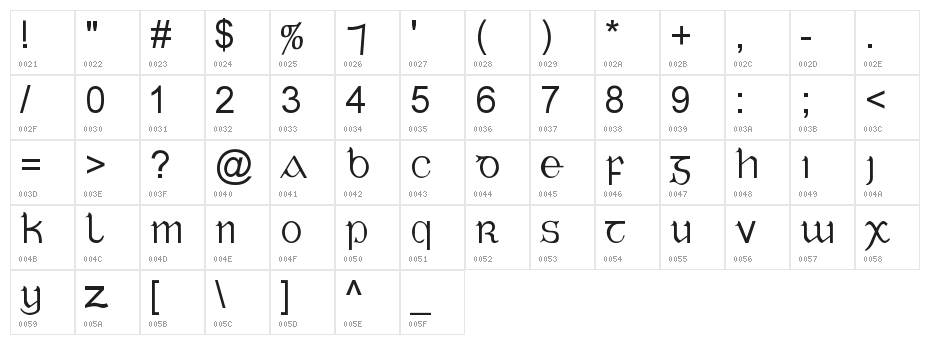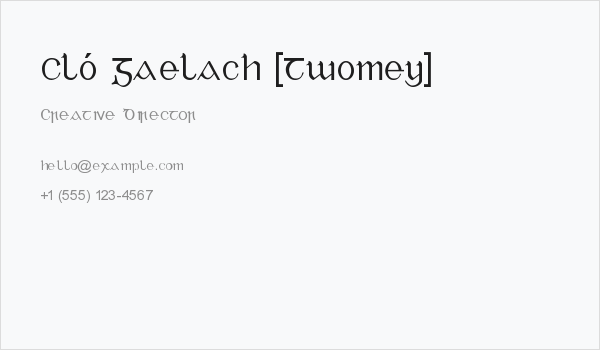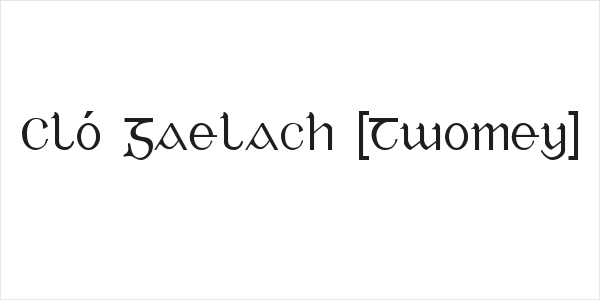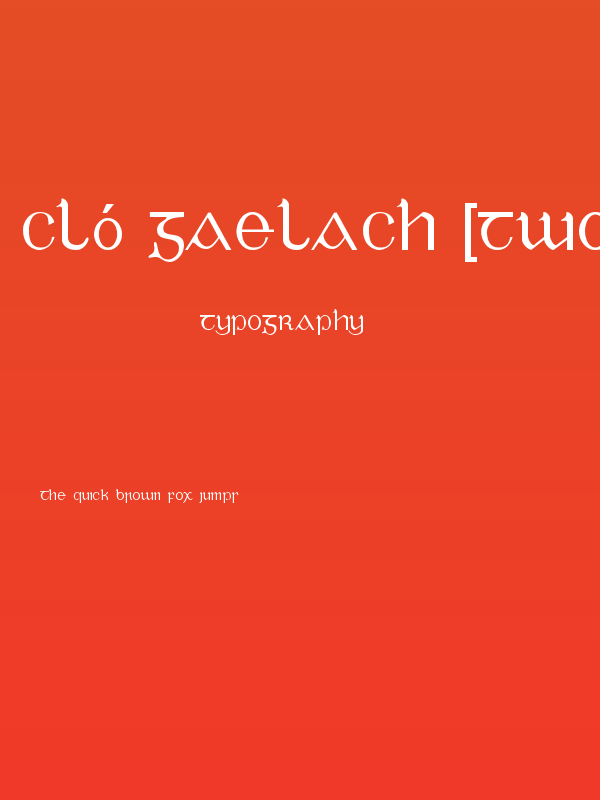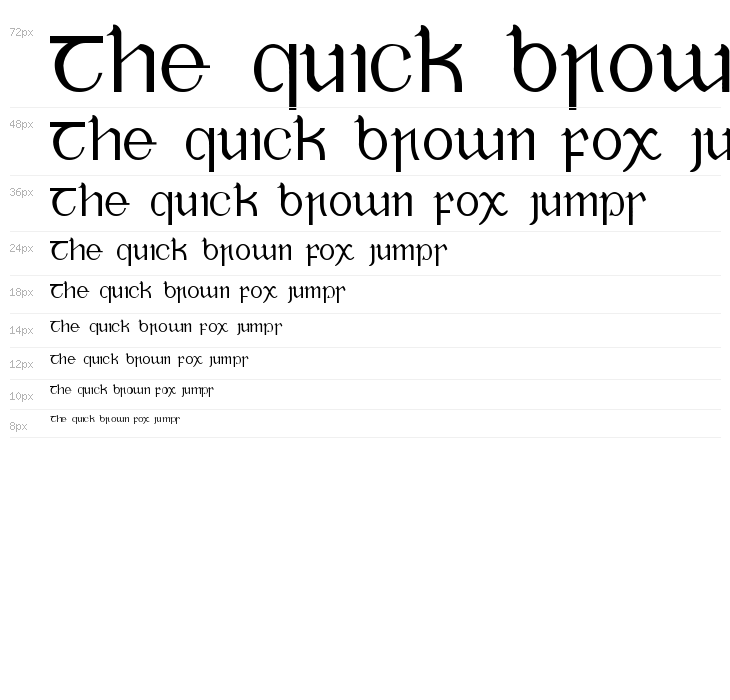
Cló Gaelach [Twomey] Font
Cló Gaelach [Twomey] Description
This font exhibits a unique blend of traditional and modern elements, characterized by its distinct angular shapes and sharp edges. The uppercase letters have a strong presence with their bold, geometric forms, while the lowercase letters maintain a consistent style with slightly softer curves. The numerals are clear and legible, matching the overall aesthetic of the alphabet. Special characters are designed with the same attention to detail, ensuring a cohesive look across all glyphs. This font's style is reminiscent of Gaelic script, offering a cultural and historical touch that adds depth and character.